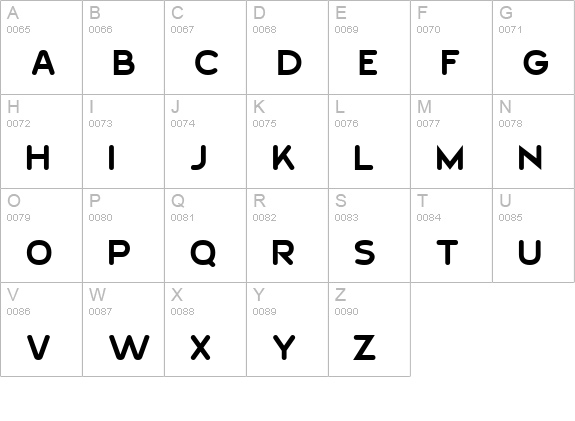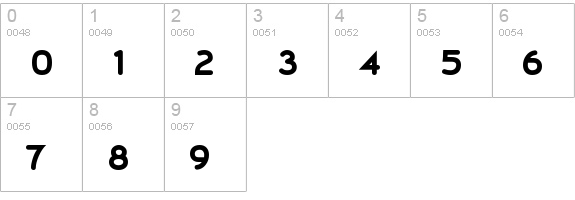
The 20th Century Font is a timeless typeface that embodies the sleek and sophisticated design aesthetic of the 20th century. With its clean lines and modern yet classic appeal, this font is perfect for adding a touch of elegance to any project. Its versatile nature makes it suitable for a wide range of design applications, from branding and advertising to editorial and web design. What sets the 20th Century Font apart is not only its striking visual impact but also its accessibility. This font is available for free download at FontsMarket.com, making it easily accessible to designers and creatives looking to enhance their work with a touch of retro charm. Whether you're working on a vintage-inspired project or simply looking to add a touch of nostalgia to your designs, the 20th Century Font is a must-have in your font library.